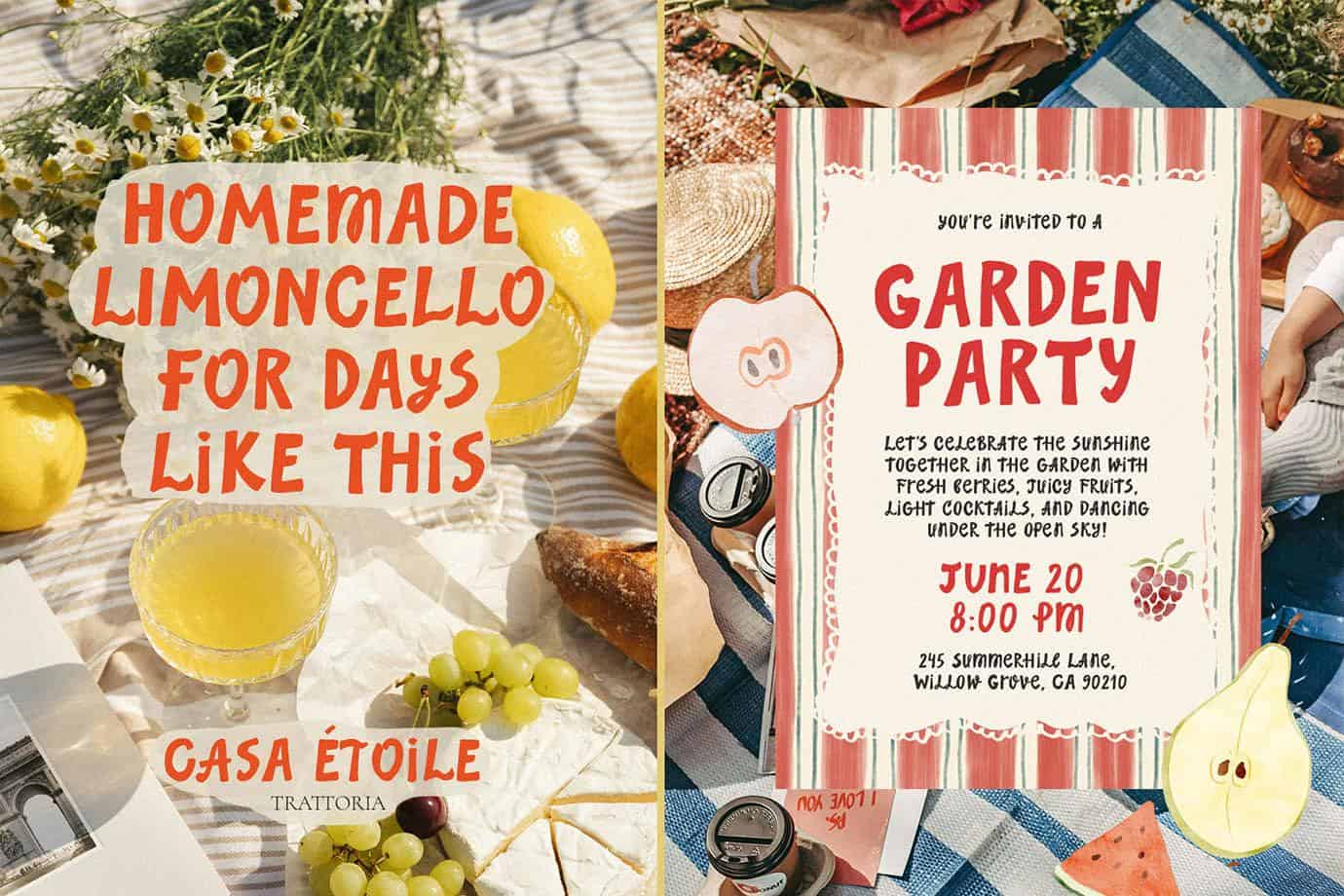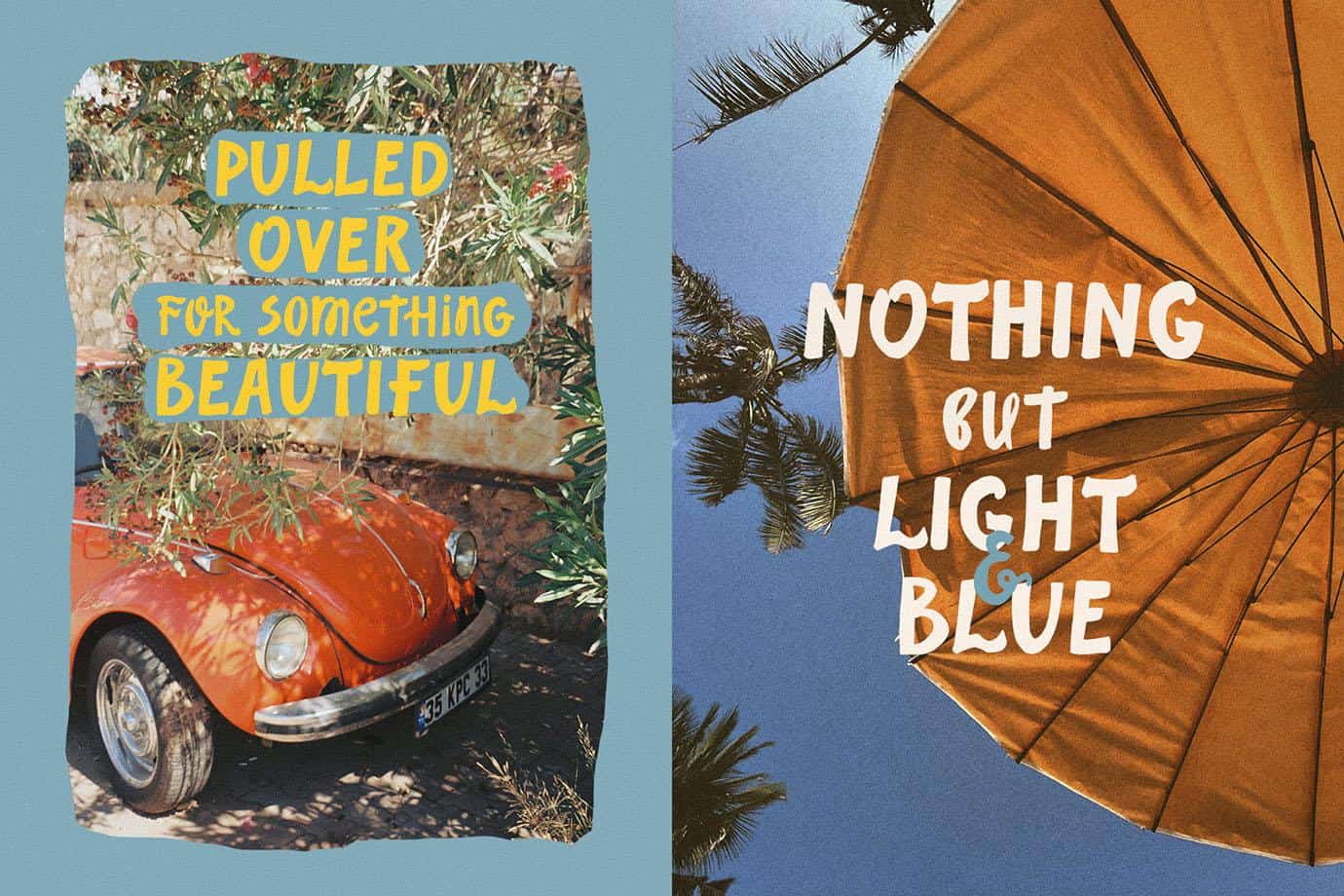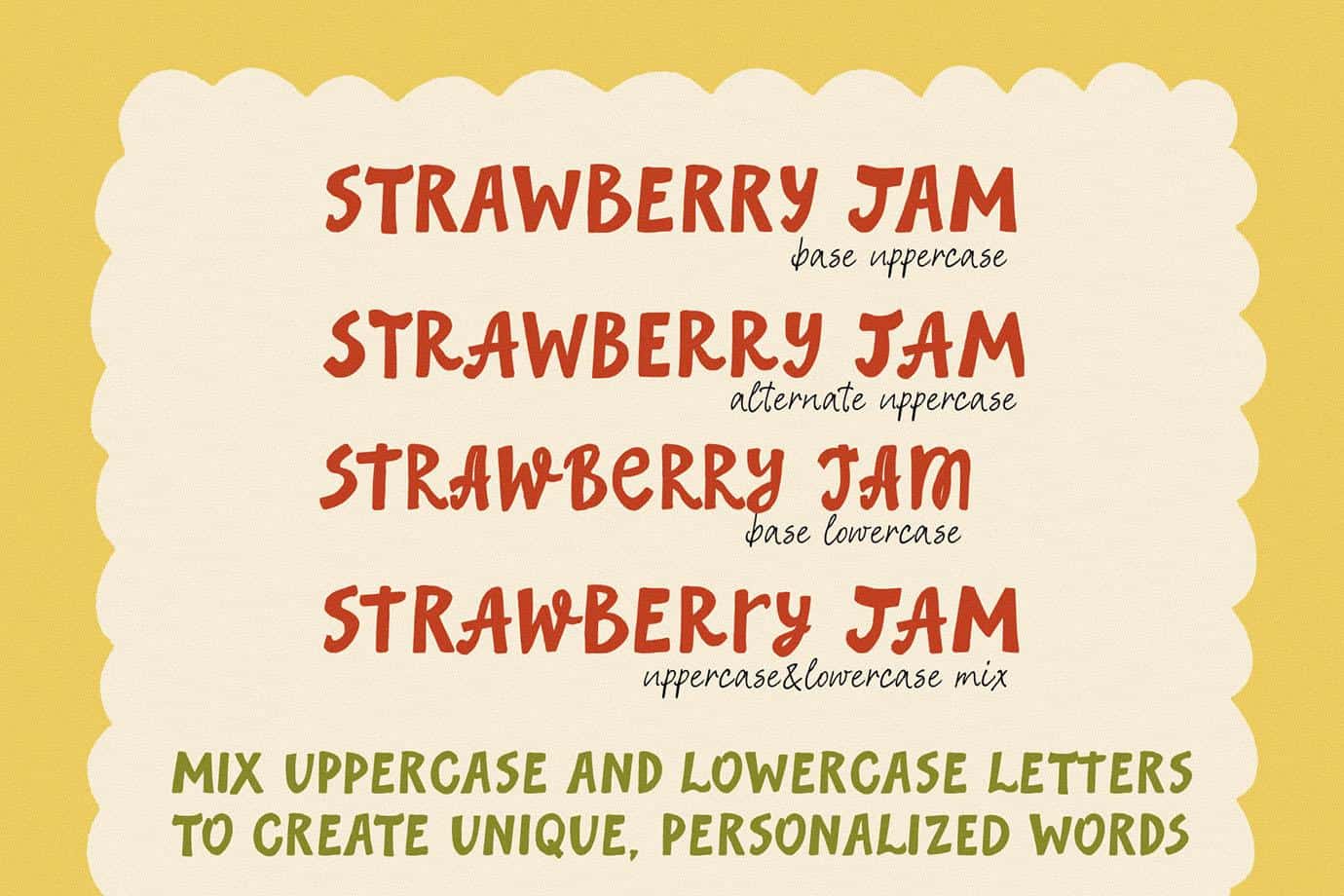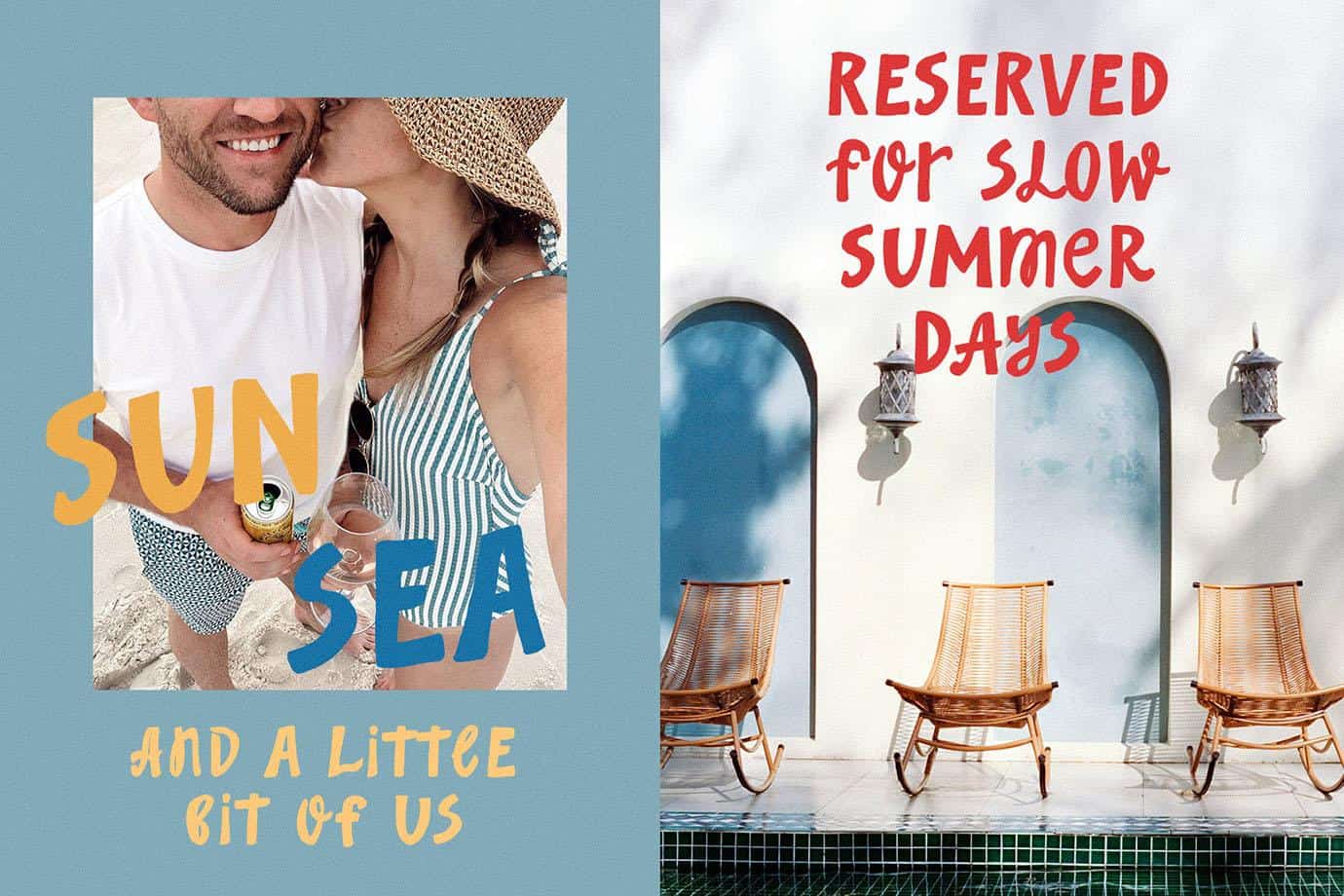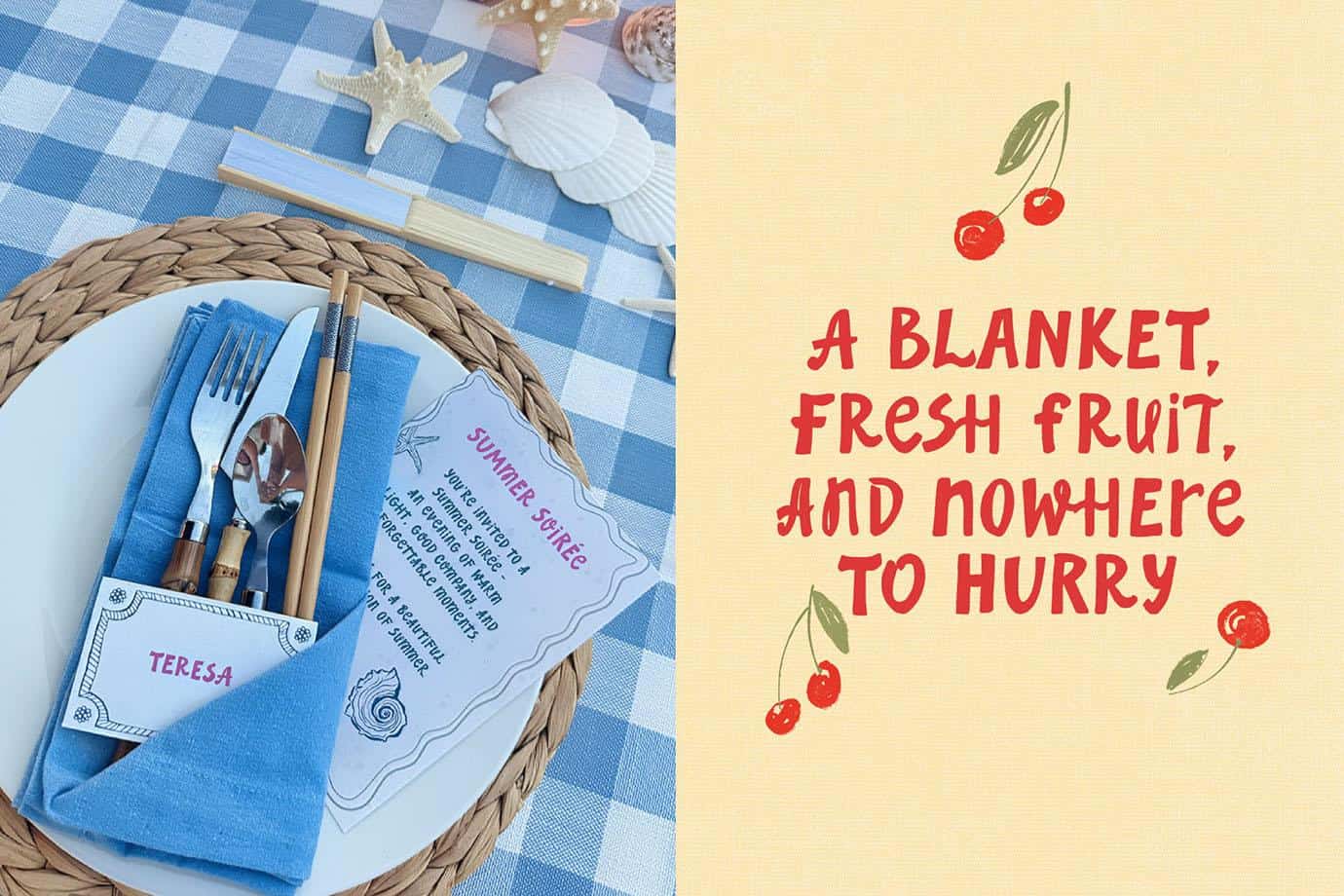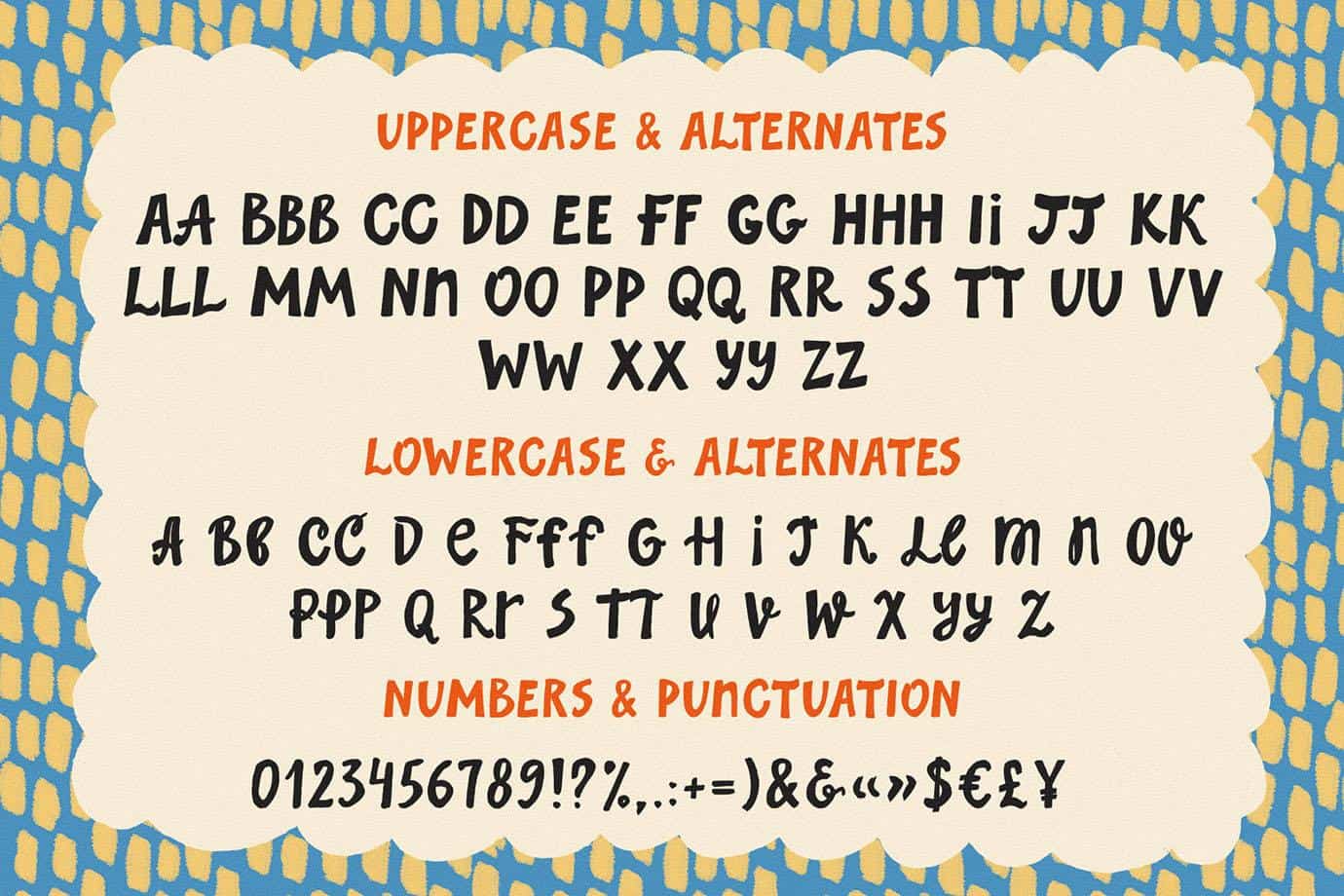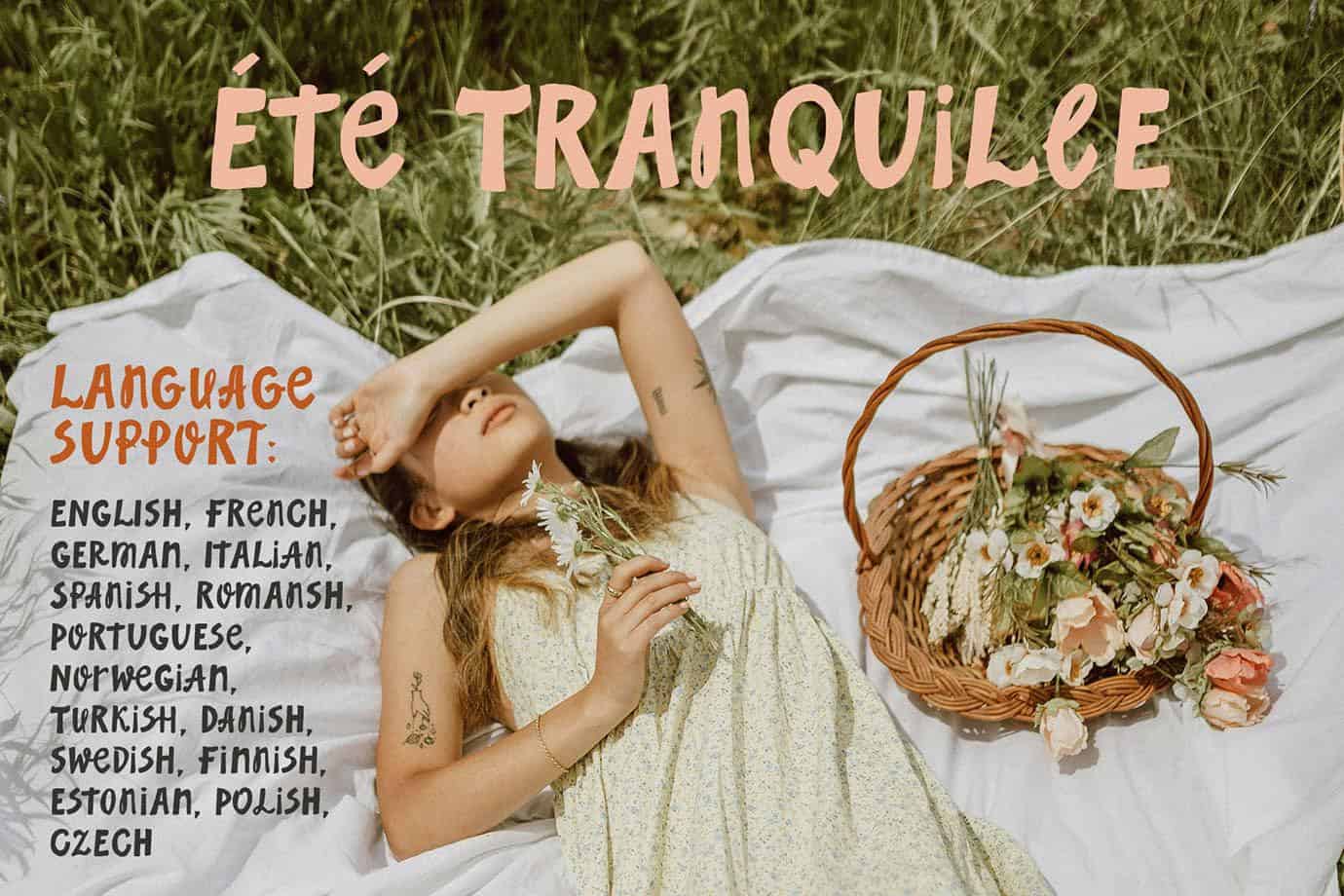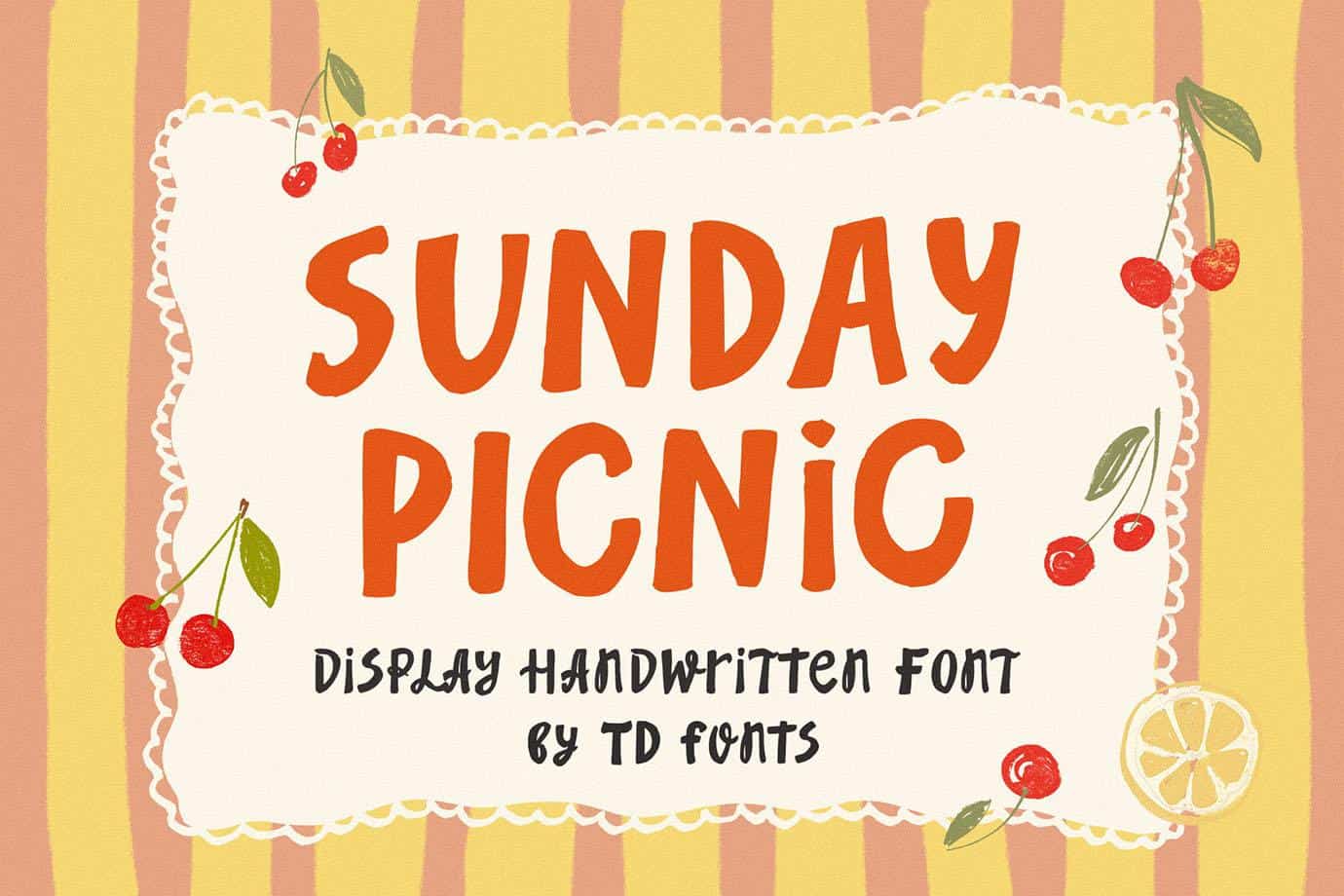
Sunday Picnic Font – Bold Sans Serif Handwritten Mixed Font
Sunday Picnic is a bold sans serif hand-drawn display font with chunky decorative letters, energetic strokes, and an organic imperfect look full of personality
Sunday Picnic is a bold sans serif hand-drawn display font with an imperfect organic style, plenty of alternates, and easy mix-and-match uppercase and lowercase letters for unique custom lettering.
Sunday Picnic is a bold sans serif hand-drawn display font with chunky decorative letters, energetic strokes, and an organic imperfect look full of personality. Some characters feel close to a classic sans serif, others have a playful cutout look, and a few include subtle wavy details, giving the font its distinctive mixed-style character.
Every character includes an alternate, and uppercase and lowercase letters share the same height, so you can mix them freely and build countless custom combinations. This makes Sunday Picnic especially useful for unique personalized lettering, branding, logos, posters, packaging, and any design where you want the words to feel original and full of life.
With irregular shapes, expressive lines, bold contrast, and a slightly slanted structure, Sunday Picnic has a relaxed handmade feel that looks human, cheerful, and memorable. Its handcrafted imperfections and endless mix-and-match potential make it a strong decorative font for bold headlines, creative projects, and eye-catching graphics.
Uppercase and lowercase letters
Alternates for every character
Numbers and punctuation
Language Support:
Sunday Picnic supports English, French, German, Italian, Spanish, Portuguese, Danish, Norwegian, Swedish, Finnish, Estonian, Romansh, Turkish, Polish, and Czech.